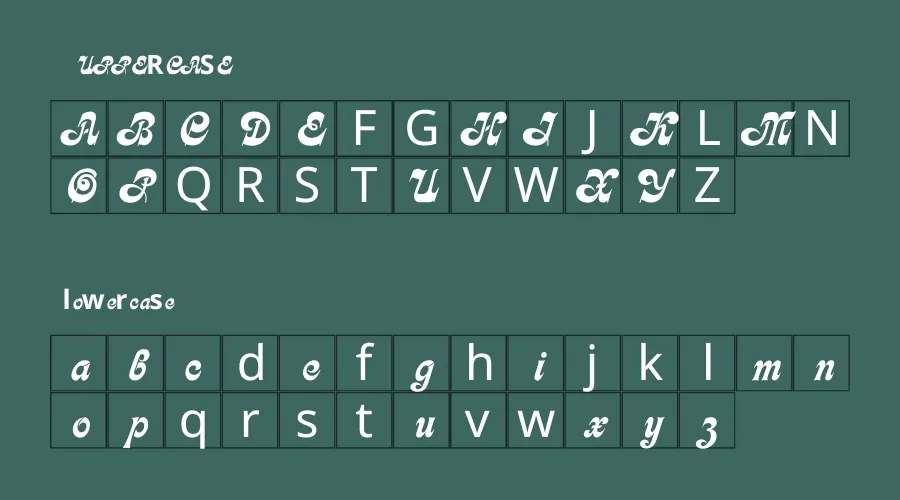
About Asessor Font
The Asessor Font is a perfect choice for all your normal or stylish purposes. It falls into the category of the fancy texture family. This font was developed by an unknown graphic designer with a unique type of characters and weights such as bold, italic, and regular.
This texture is also gets fame for its high legibility. It is suitable for CSS, CDN, and adobe photoshop. The strong and wide texture of this font gives it a unique look and includes various characters of the alphabet set such as uppercase letters, numerals, symbols, punctuations, and many more.